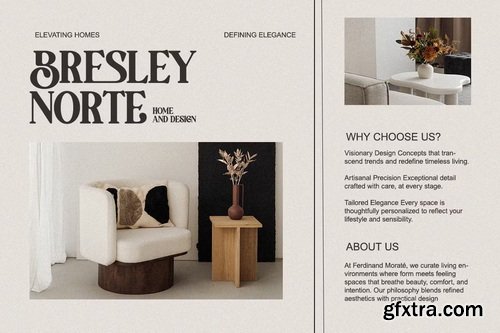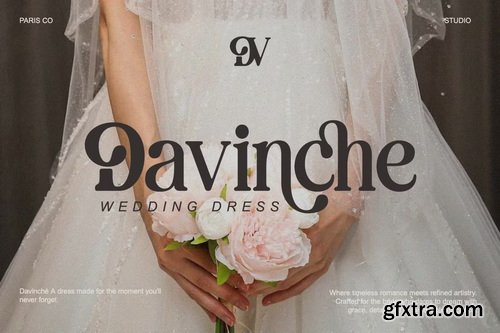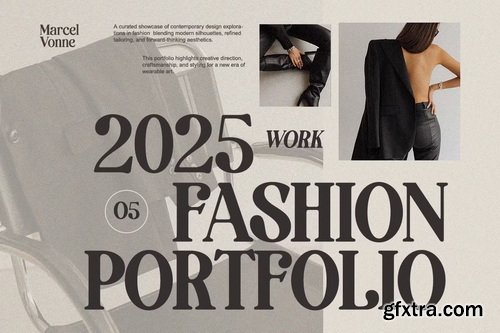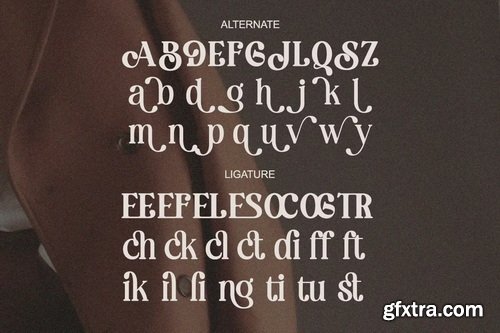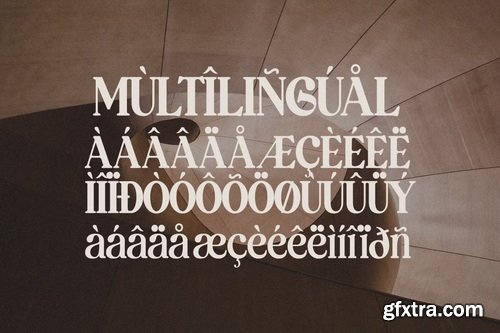
CreativeMarket - Bolding Century Modern Elegant Font
- Introducing Bolding Century – a modern elegant serif typeface inspired by timeless design and luxury typography. With beautifully curved terminals and bold letterforms, this typeface brings sophistication, charm, and uniqueness to any layout. It perfectly blends vintage aesthetics with modern readability, making it a must-have for premium branding. Designed for those who crave both statement and finesse, this font is your go-to tool for editorial elegance and strong brand identity.